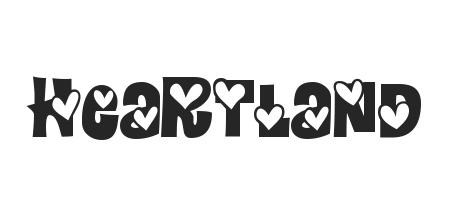
Heartland
HEARTLAND computer font v1.0 ©2002 Harold Lohner • HLohner@aol.com • www.haroldsfonts.com Another takeoff on the classic analog font \"Daisyland\" |